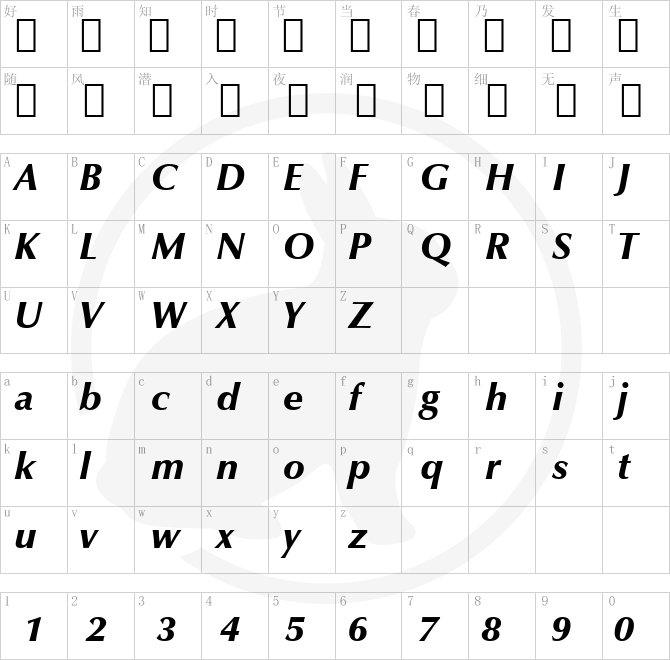
- Font Name:ZapfHumnst Ult BT
- Subfamily:Ultra Italic
- Subfamily:Zapf Humanist 601 Ultra Italic
- Full Name:ZapfHumnst Ult BT Ultra Italic
- PostScript:ZapfHumanist601BT-UltraItalic
ZapfHumnst-Ult-BT-Ultra-Italic.ttf is a very beautiful artistic font, ZapfHumnst-Ult-BT-Ultra-Italic.ttf is widely used in the design and printing of various books and pictures,ZapfHumnst-Ult-BT-Ultra-Italic.ttf has a strong visual impact,ZapfHumnst-Ult-BT-Ultra-Italic.ttf is a commonly used font in newspapers, magazines and books, and is used in posters, e-commerce Poster design, store design, logo design, font design and other fields.ZapfHumnst-Ult-BT-Ultra-Italic.